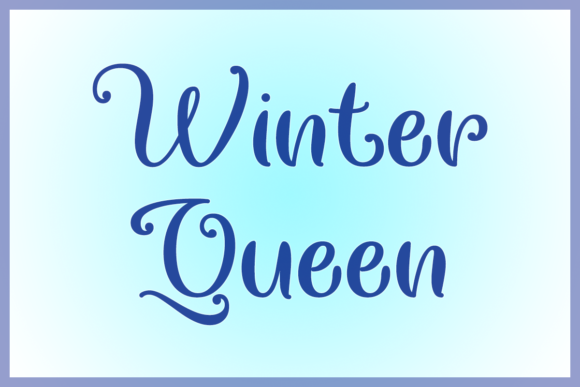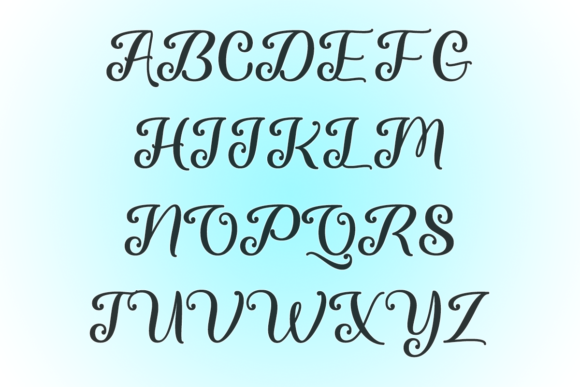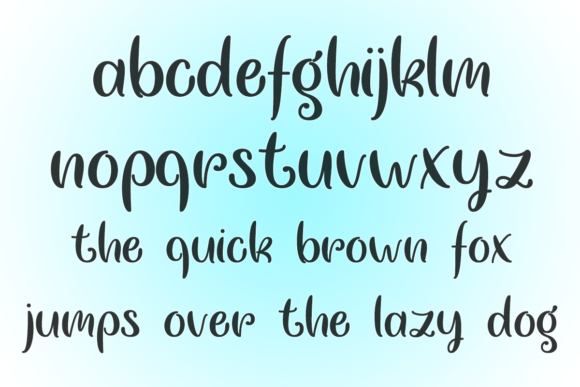
HomeScript FontsChasing Snowflakes Font Script Fonts Chasing Snowflakes Font FacebookXPinterestWhatsApp Chasing Snowflakes Font Poster 2 Chasing Snowflakes Font Poster 3 Chasing Snowflakes Font Poster 4 About Chasing Snowflakes Font Chasing Snowflakes is a fun wintery typeface that will add whimsical charm to your projects all year round! DOWNLOAD NOW People also explored Abcd Cursive Dotted Lined1 Font Fathers Day Font Magnolia Font Artist Hand Plants and Moon Font Signature Collection Font Bilostaten Font Nevantik Font Caramel Slice Font 327 0 TagsChasing Snowflakes Font Previous articleShania Quinton FontNext articleMarxellina Font LEAVE A REPLY Cancel reply Comment: Please enter your comment! Name:* Please enter your name here Email:* You have entered an incorrect email address! Please enter your email address here Website: Save my name, email, and website in this browser for the next time I comment. Personal Use Free Quentin Personal Use Free Read more about this font Limejuice Personal Use Free Read more about this font Authurium Personal Use Free Read more about this font Rafika Personal Use Free Read more about this font BLOG How to Cut Any Font on Cricut: Convert a Font to SVG (Free) Turn any font into a clean SVG so it cuts crisp on Cricut - a quick 3-step workflow using a free font-to-SVG tool. Top 7 Google Fonts Alternatives for Faster and Privacy-Friendly Web Design (2025) Free Fonts Risk: Why Free Fonts Can Be Dangerous for Designers Best Fonts for YouTube Videos: Make Your Thumbnails Stand Out